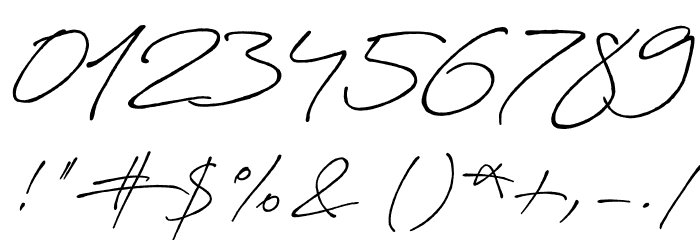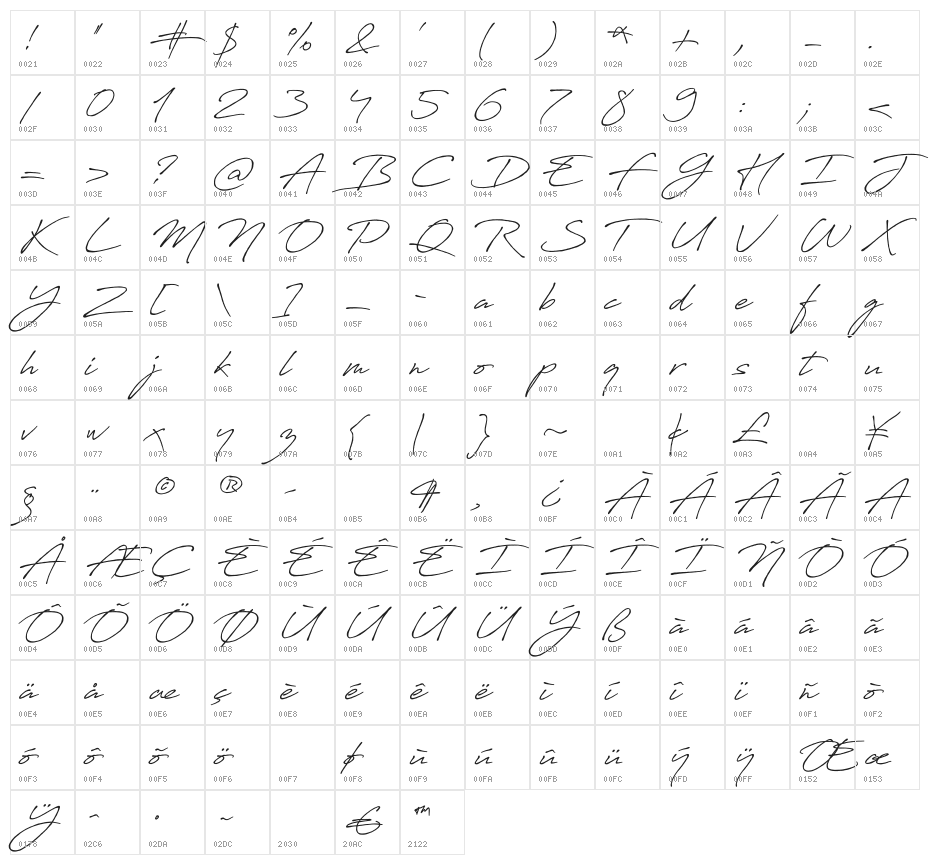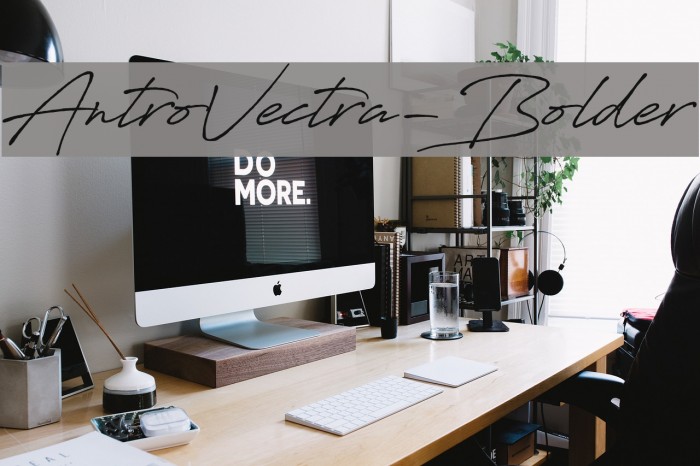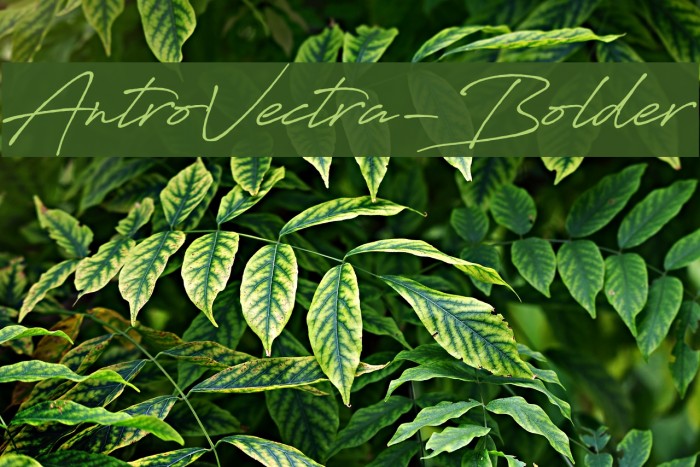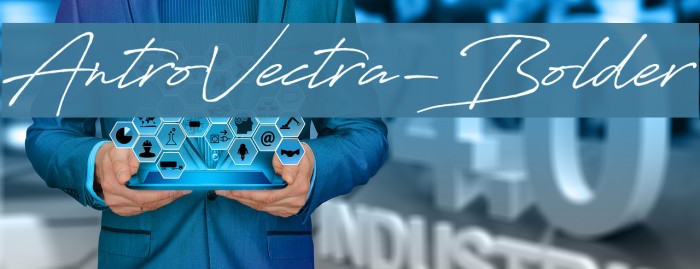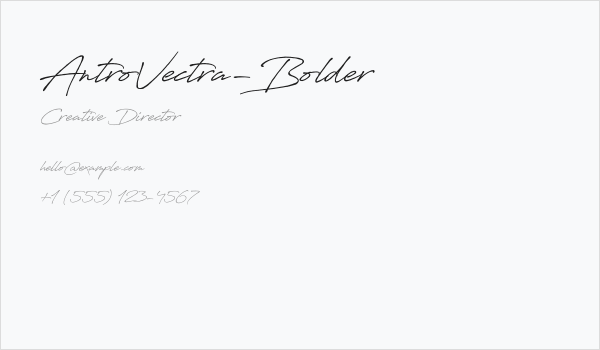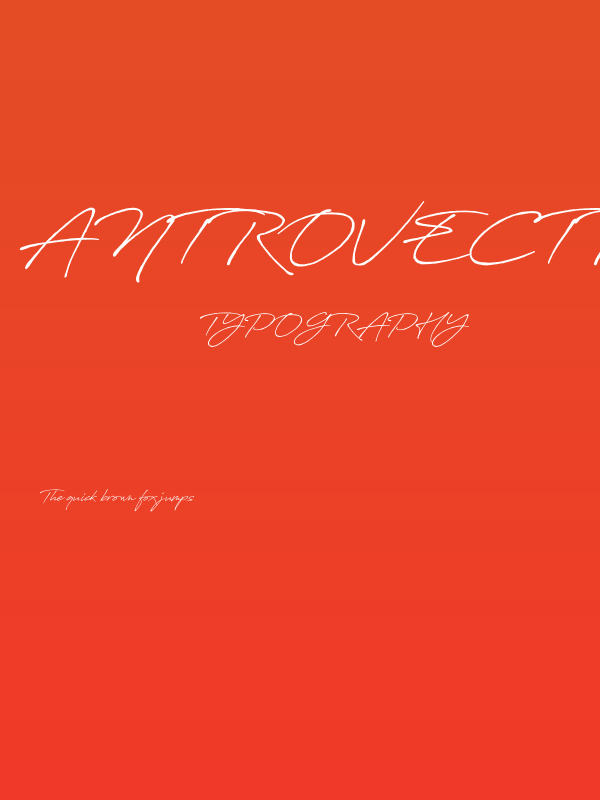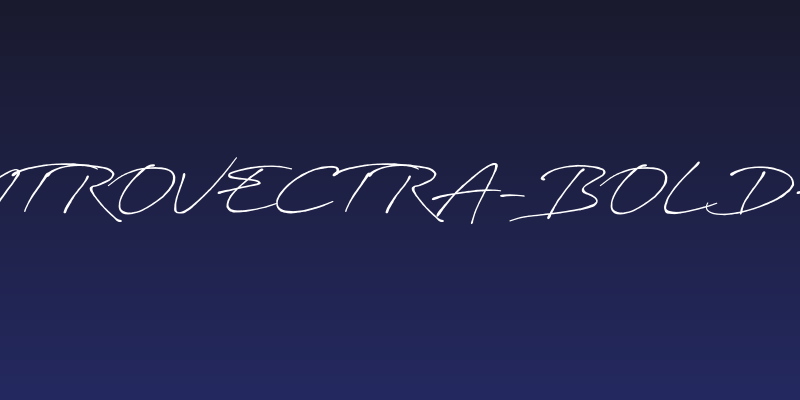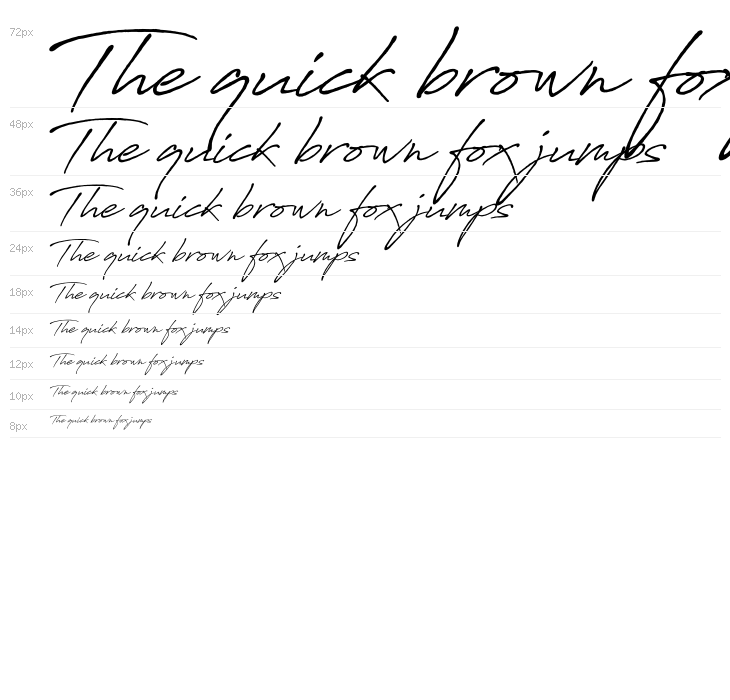
AntroVectra-Bolder Font
AntroVectra-Bolder Description
This font features a dynamic and fluid script style, characterized by its elegant and flowing letterforms. The uppercase letters are slightly more restrained, maintaining a sense of sophistication, while the lowercase letters exhibit a more pronounced cursive flair. The numerals are consistent with the overall style, offering a seamless integration with the alphabet. Special characters are designed to complement the script, maintaining the same fluidity and elegance. The strokes are smooth and continuous, giving the font a handwritten appearance that is both stylish and approachable.